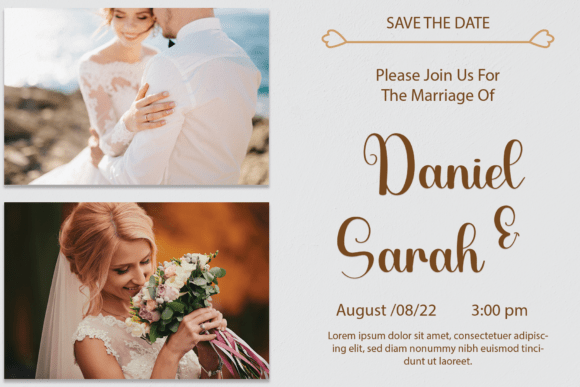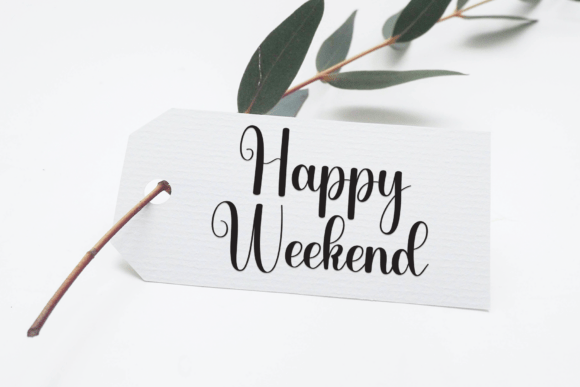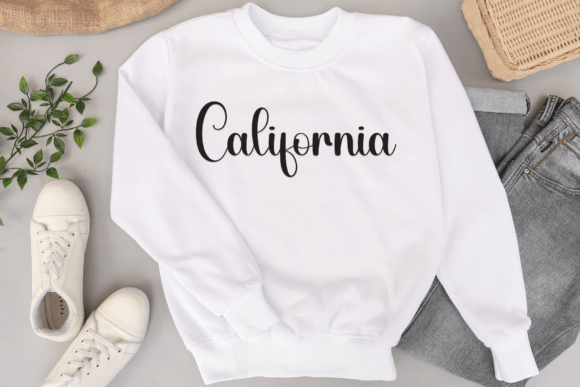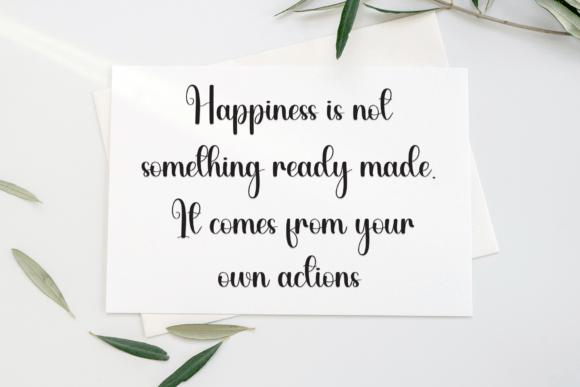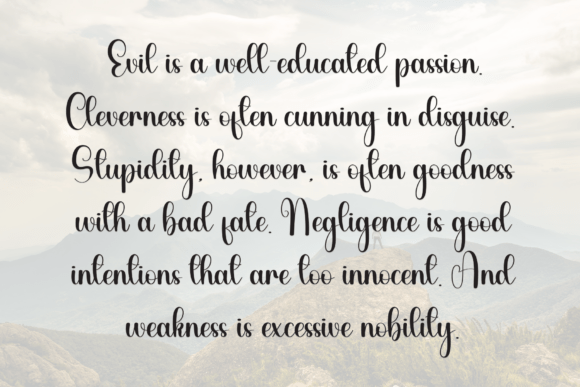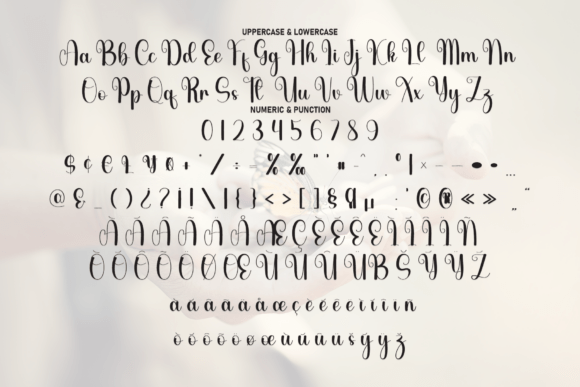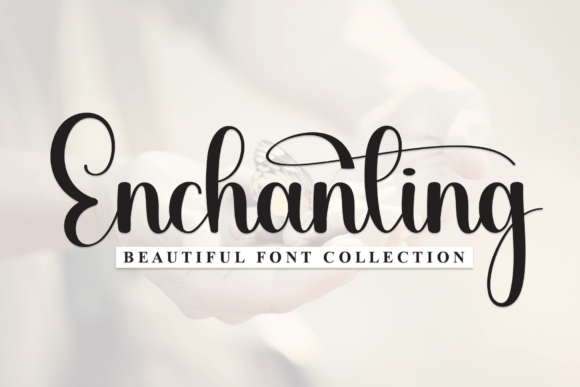
Discover the Magic of Enchanting Font: Elevate Your Designs with Whimsy and Charm
Are you searching for a font that can add a touch of magic to your designs? Look no further than our Enchanting Font, a hand-crafted typeface that is sure to captivate your audience with its irresistible charm. This mesmerizing font is designed to seamlessly blend a cozy atmosphere into your designs, evoking feelings of joy and warmth. Whether you’re a designer, crafter, or DIY enthusiast, our Enchanting Font is the perfect tool to help you create unique and captivating designs that leave a lasting impression.
The Power of Hand-Crafted Typography
In an era dominated by digital design, our Enchanting Font offers a refreshing respite from the usual cookie-cutter typography. Each letter has been carefully crafted by hand to ensure that every curve, line, and detail is infused with a sense of whimsy and personality. The result is a font that feels both nostalgic and modern, perfect for designers and crafters looking to add a touch of personality to their work.
Our Enchanting Font is incredibly versatile, making it suitable for a wide range of design applications. Here are just a few ideas to get you started:
- Wedding Invitations: Create romantic and memorable wedding invitations that set the tone for a magical and unforgettable celebration.
- Bewitching Cards: Design enchanting greeting cards for special occasions, such as birthdays, anniversaries, or holidays.
- Social Media Graphics: Add a touch of whimsy to your social media graphics, from Facebook posts to Instagram stories.
- Branding and Packaging: Use our Enchanting Font to create eye-catching branding and packaging that stands out from the crowd.
Why Choose Our Enchanting Font?
So why choose our Enchanting Font over other typefaces? Here are just a few reasons:
- Unique and Exclusive: Our Enchanting Font is a one-of-a-kind typeface that will help you stand out from the crowd.
- High-Quality Design: Each letter has been carefully crafted to ensure that the font is both beautiful and legible.
Tips for Using Our Enchanting Font
To get the most out of our Enchanting Font, here are a few tips to keep in mind:
- Experiment with Colors: Our Enchanting Font looks great in a range of colors, from soft pastels to rich jewel tones.
- Play with Pairings: Try pairing our Enchanting Font with other typefaces to create a unique and eye-catching combination.
- Don’t be Afraid to Get Creative: Our Enchanting Font is designed to be versatile, so don’t be afraid to experiment and try new things.